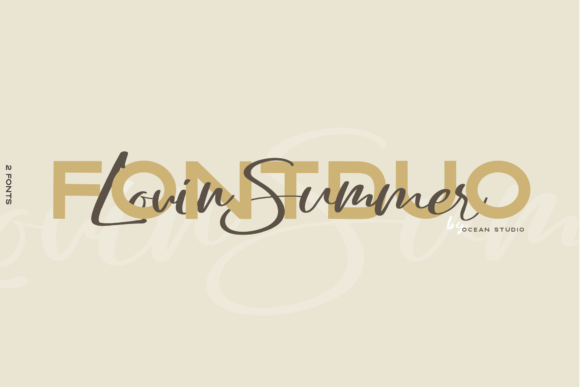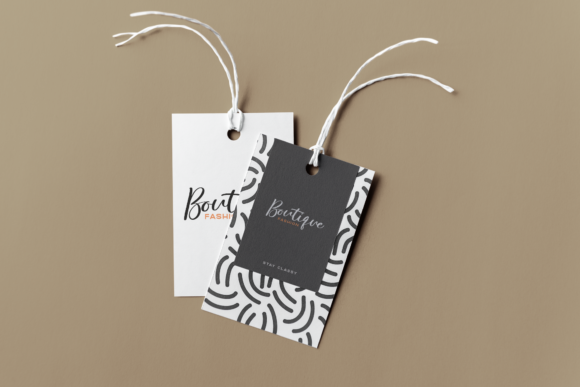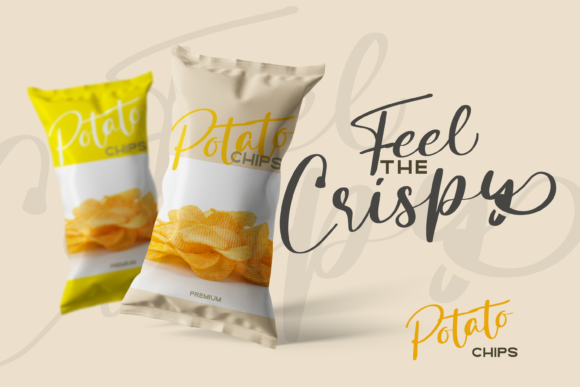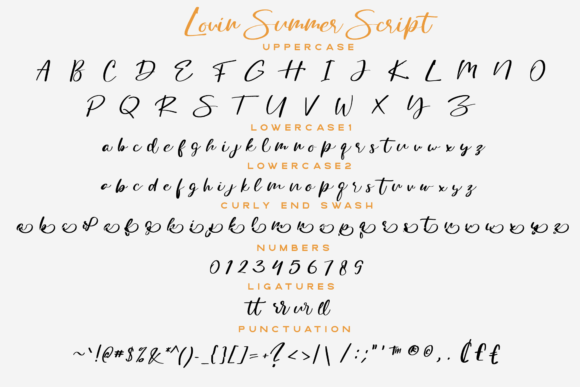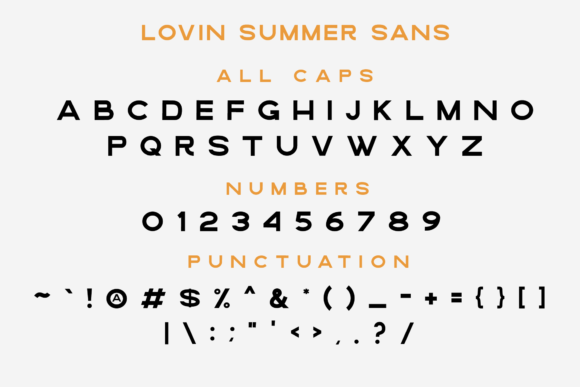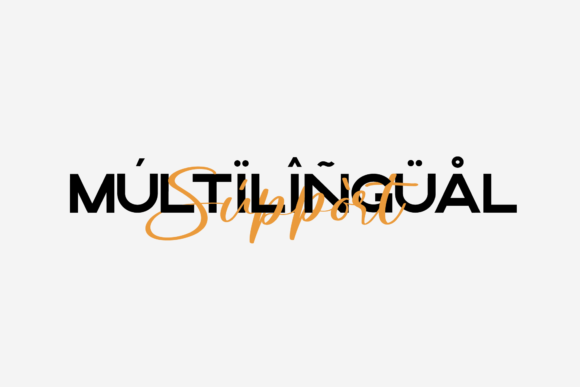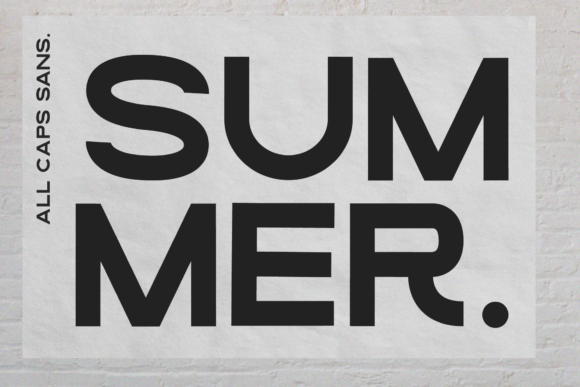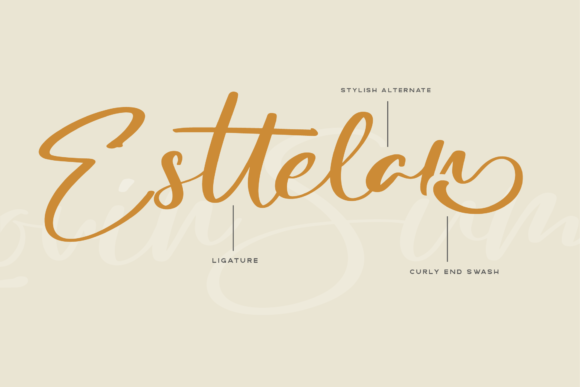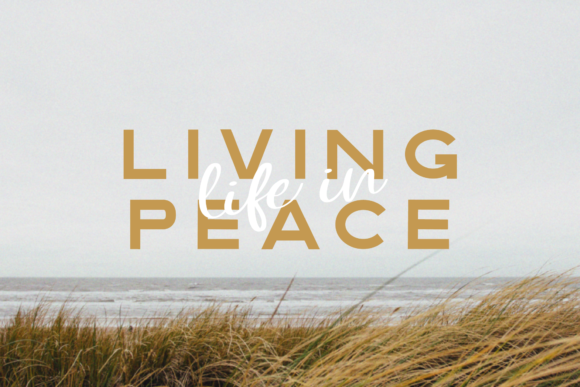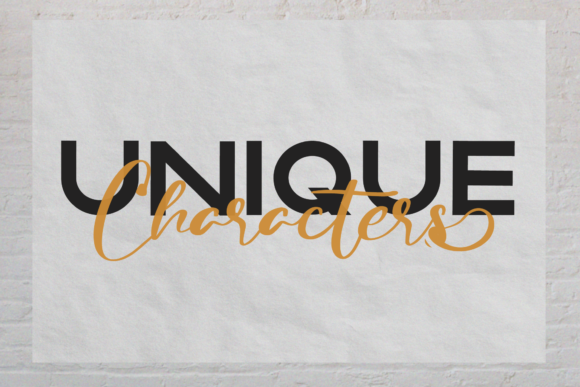
Lovin Summer Font
About Lovin Summer Font
Lovin Summer is a beautiful duo font. It combines a gorgeous script with a stylish and strong sans serif. This combination will add a sophisticated touch to your designs. It’s perfect for logos, branding, quotes, stationery, greeting cards and much more!